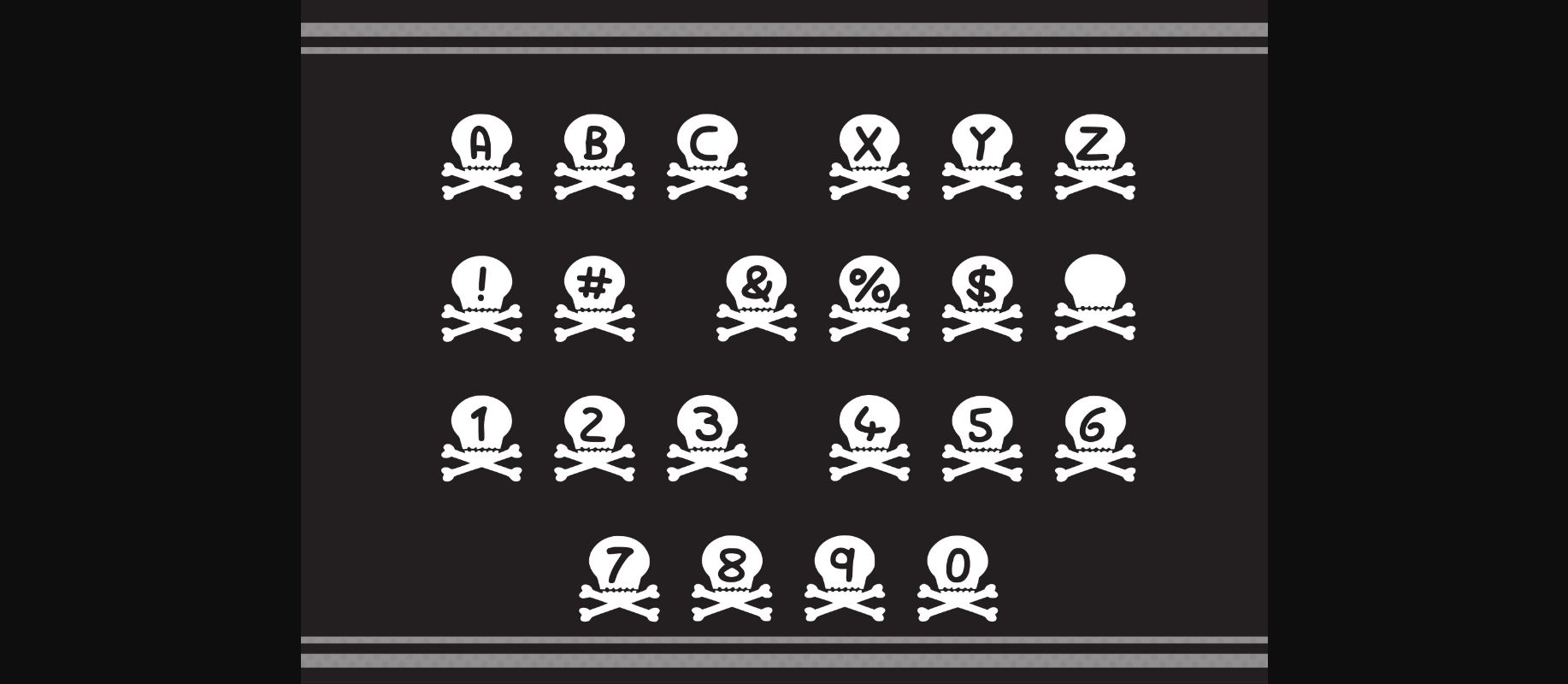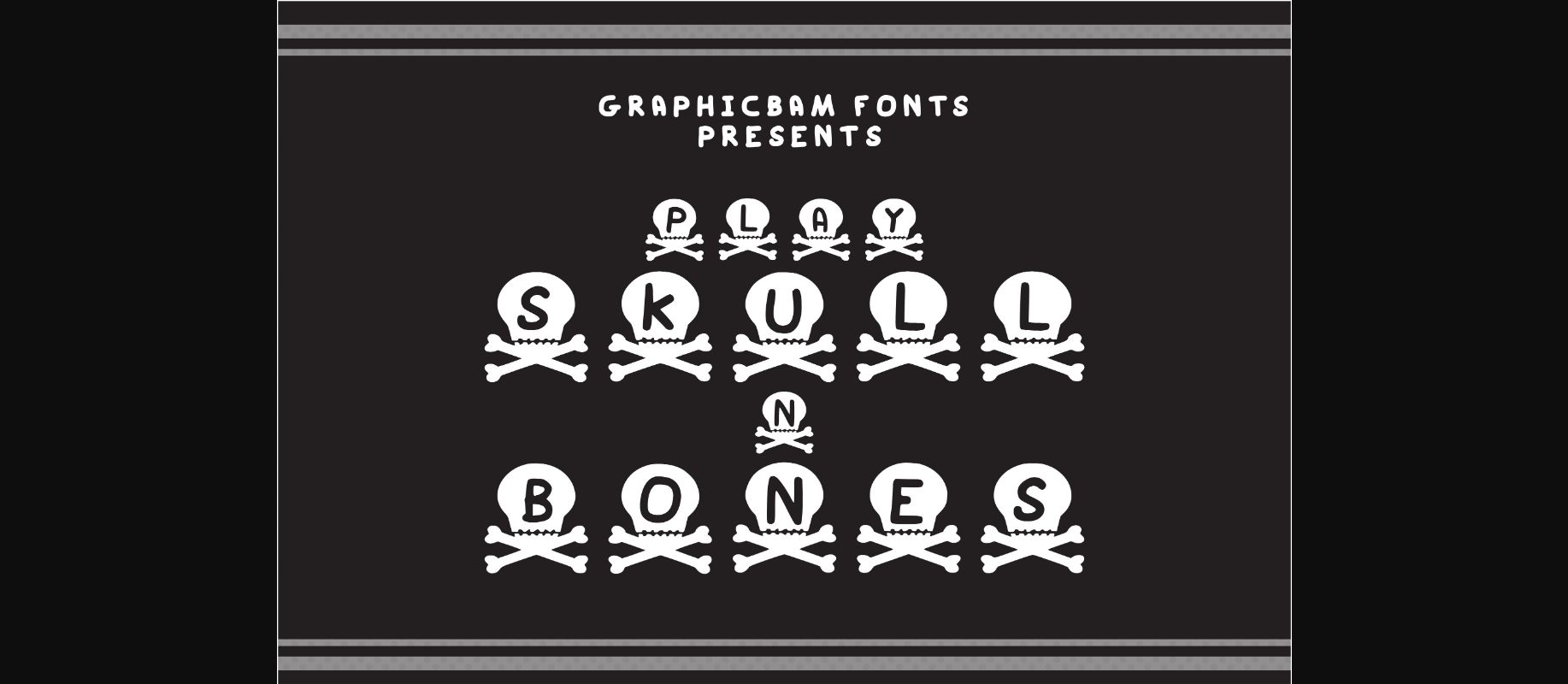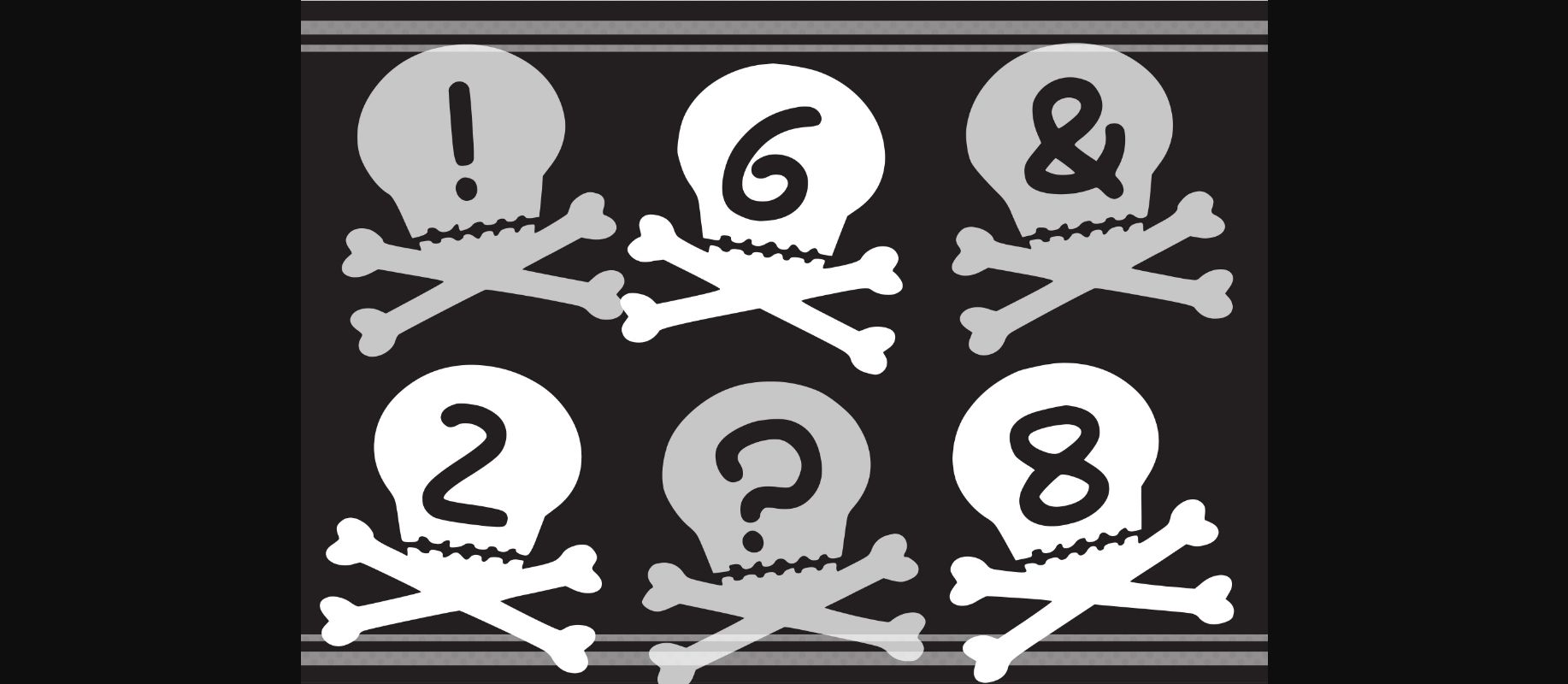
Play Skull N Bones Font
About Play Skull N Bones Font
A little bit spooky and a lot of fun, Play Skull N Bones is the best decorative font to use for Halloween or other bold creative ideas!